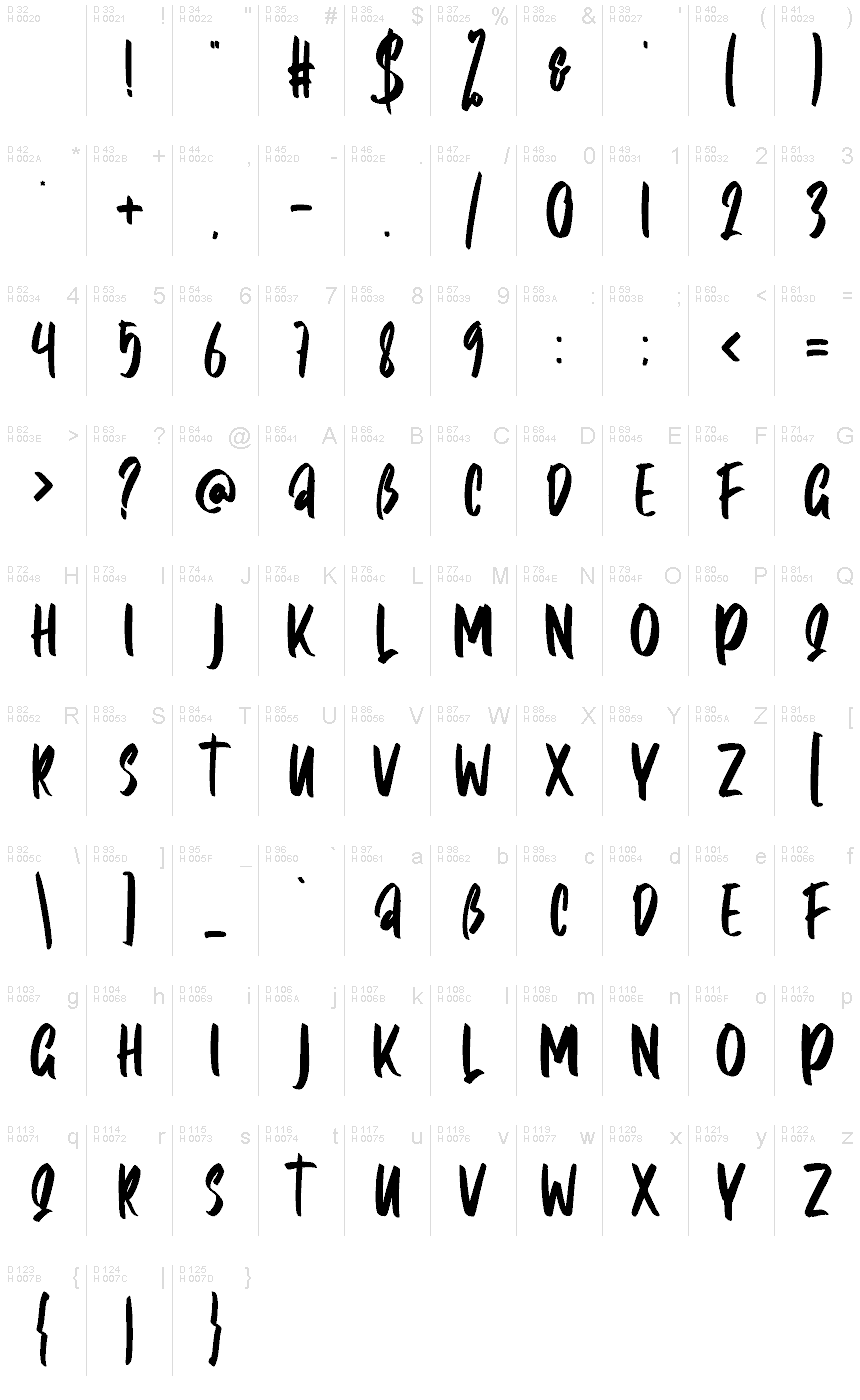
Annice
Annice font is a condensed handwritten font designed by Skiiller Studio with contemporary appeal and character. Expressive and spontaneous, this energetic typeface creates a casual atmosphere for readers who will always enjoy the funny-looking letters it displays with every sentence. Annice is based on sharp-edged cursive-style characters that appear with different textures giving every header a unique look.
Use Annice font freely in movie titles, advertisement posters, book covers, magazine headlines, company or organization logos and letterings that need to appear fun. Other use cases include invitation cards and designs for musical events like concerts or weekly nightclub parties.